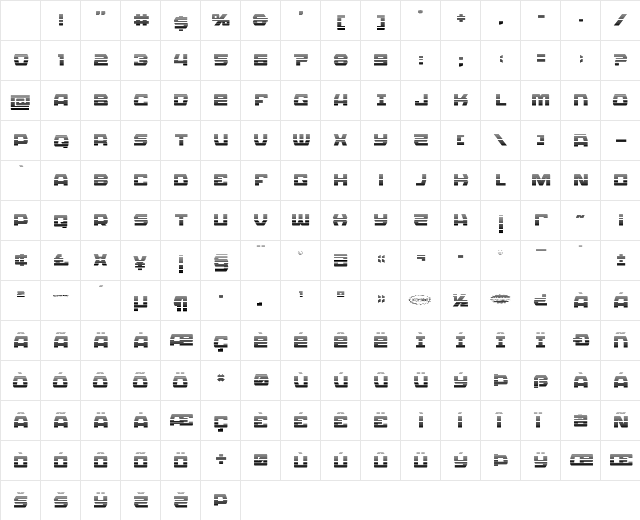
Complete Olympic Carrier Gradient Regular glyph index. Displaying only characters natively supported by Olympic Carrier Gradient Regular font.
Olympic Carrier Gradient is a composed and adaptable typeface that performs quietly and consistently across a wide range of design contexts.